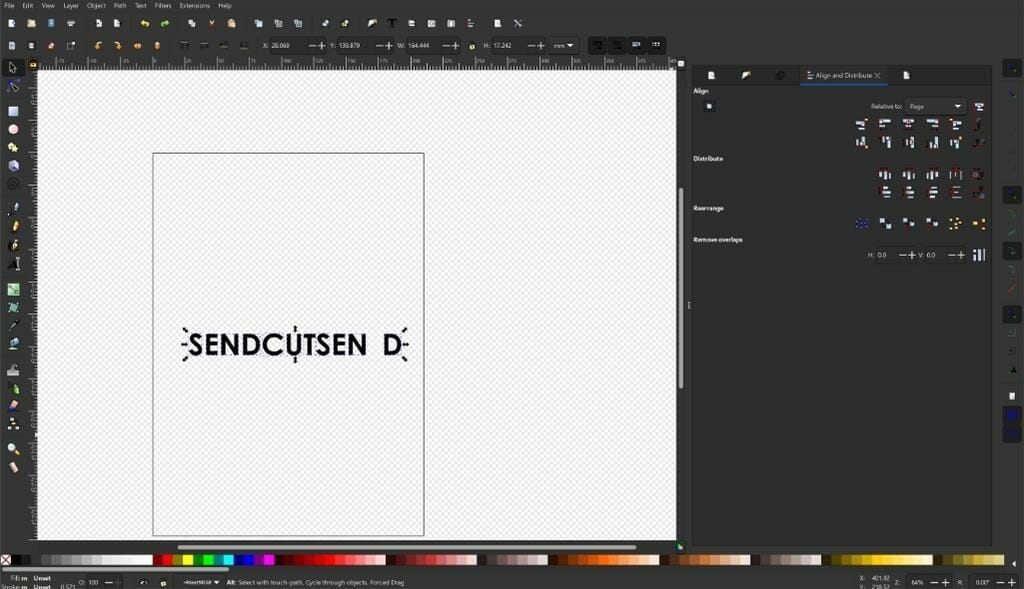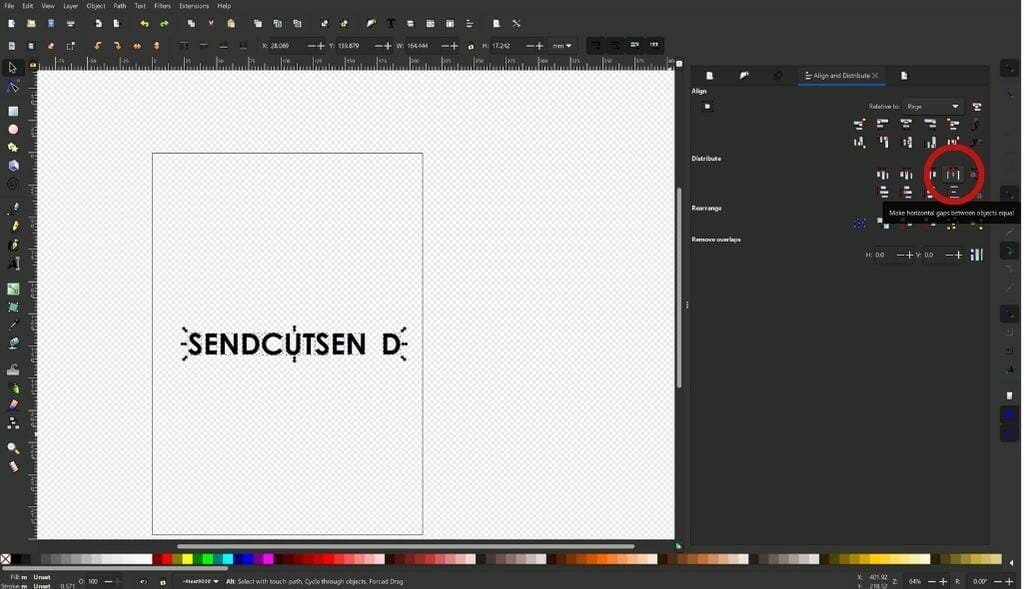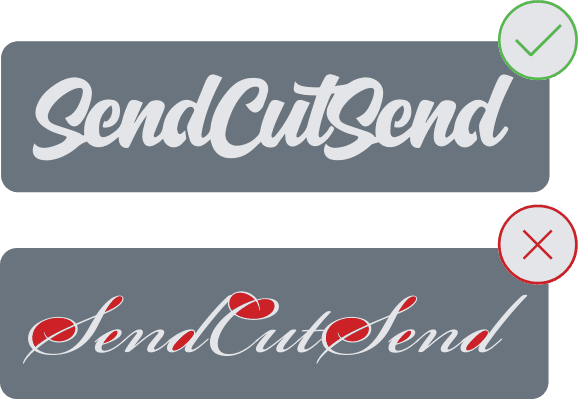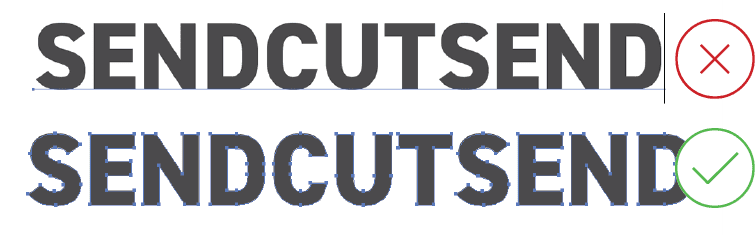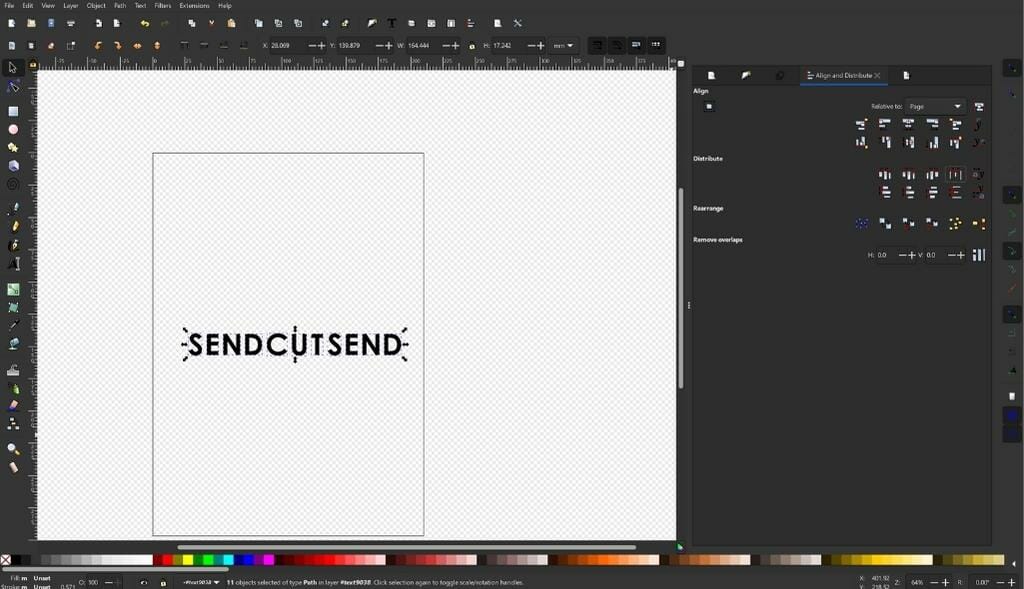
8 Top Fonts for Laser Cutting + Tips to Pick the Right Font
Picking the best font for laser cutting is important for making sure your parts look and function the way you first conceptualized them. Without the right font, you can lose integral parts of the design, weaken the structural integrity of the part, or even warp the final part. We are here to help you get the most out of your laser cut parts by outlining some of the best fonts to use and provide some guidelines for font types to avoid.
Illustration of "SendCutSend" written in text with a text box around it above the same text but converted to paths with nodes.
Keep reading to learn more about picking good fonts for laser cutting!
8 Best Fonts for Laser Cutting
Most available fonts will require further adjustment and customization depending on how the text is being cut, but this list includes 8 fonts that are laser cutting friendly and can be easily adjusted to suit your needs.
Arial Black
Arial Black is a bold, sans serif font that can be easily bridged for better laser cutting results. Without any variation in line width, this font is one of the best non-custom options for laser cutting in a variety of material thicknesses.
Sarina
If you need a cursive font, it’s best to pick a font like Sarina which can have bridges added easily without compromising the integrity of the font. With cursive fonts, it’s important that the stroke is thick and even all the way through.
Impact
Impact is one of the best sans serif fonts for laser cutting because it’s bold and equal in stroke width. It will require bridging depending on how it’s being cut from the material but is overall well suited for laser cutting.
Bree Serif
If you do need a serif font for your design, the serif stroke should follow the same principles: it needs to be thick enough to not get lost in the laser cutting process. Bree Serif is a good option for a laser cut serif font.
Lexend Semi-Bold
The wide letter spacing in Lexend provides plenty of space for the laser cutter kerf while providing an even stroke width.
Phudu
Phudu is a display font with some handwritten characteristics without sacrificing any of the necessary qualities in a font for laser cutting.
Verdana
Verdana unites the letter spacing of Lexend and the boldness Arial in a strong, laser cutter friendly font.
Barlow Condensed
Our final recommendation is Barlow Condensed, which is a tight, aesthetic font that’s easy to bridge and thick enough to cut without warping.
4 Tips For Picking the Right Font for Laser Cutting
The Bolder, The Better
The biggest issue with most readily available fonts is that the lettering is often too thin to laser cut effectively. Thin text cutouts or negative space will warp during machining and processing, small features are more likely to get lost in the laser’s beam width, and ligaturing is likely to snap in half if it’s too thin. Your best bet to avoid these issues is to pick a bold font.
Illustration with a bold font for SendCutSend cut with bridging out of a rectangle, above SendCutSend written in a calligraphic font with no bridging
The value of a bold font is being able to easily ensure that all the geometry fits within our laser cutting guidelines. In general, each cutout in your design should be greater than 50% of the material’s thickness, and never less than 0.015”. All text and features should follow this rule whether they’re reversed cutouts (material removed from a larger sheet) or positive cut.
Avoid “Handwritten” Fonts
Fonts that are meant to simulate handwriting are typically not a great choice for laser cutting for various reasons.
The first reason being that these kinds of fonts have to contain a large number of nodes to achieve the handwritten and personalized feel. When designs contain a multitude of nodes, it can take a significant amount of time to process and will result in a “choppy” cut edge. The laser interprets each node as a new stopping or starting point, so it will cut straight lines between each node, stop briefly at each defined point, and restart. It’s better to choose a font that doesn’t simulate handwriting and make sure yourself that there are a reasonable number of nodes in the design before sending it off for laser cutting.
The second reason that handwriting fonts cannot be laser cut is because they often have very thin areas that are too delicate to machine successfully. As mentioned above, features should be at least greater than 50% of the material’s thickness. Especially with cursive-like or calligraphic handwriting fonts, this minimum is difficult to achieve without scaling up the design by an order of magnitude or compromising the integrity of the font. We recommend choosing a font that feels unique to yourself or your brand without simulating a handwritten quality.
Customize Spacing Between Letters
One often forgotten aspect of laser cut typography is the spacing between the letters. The spaces between letters need to fit within our geometry requirements just like all other features do. The easiest option to adjust spacing is to type a space between each letter before you convert the text to outlines/shapes, but this does not let you really customize the spacing to suit your needs as well as our geometry requirements.